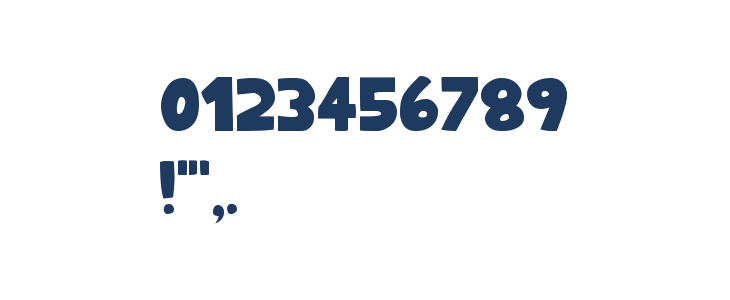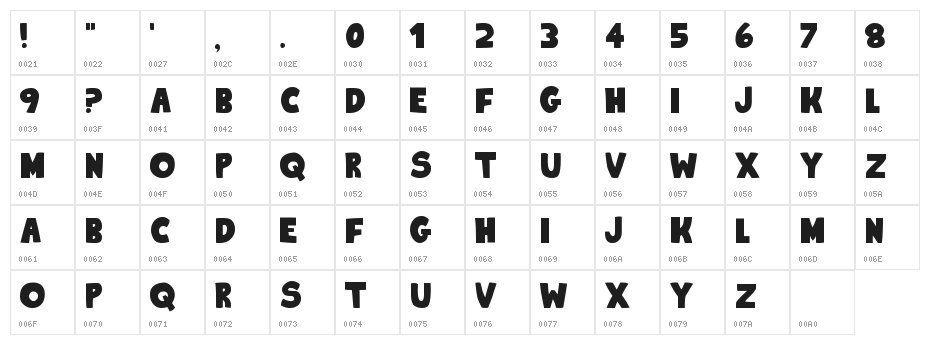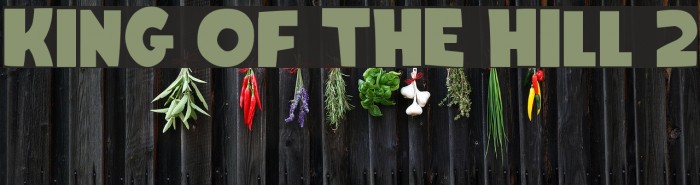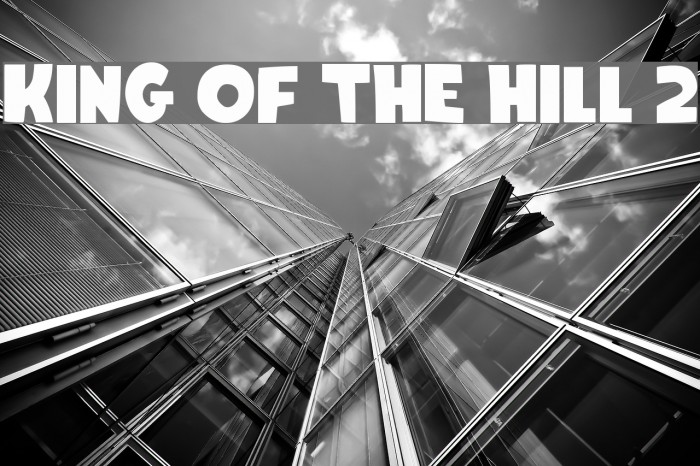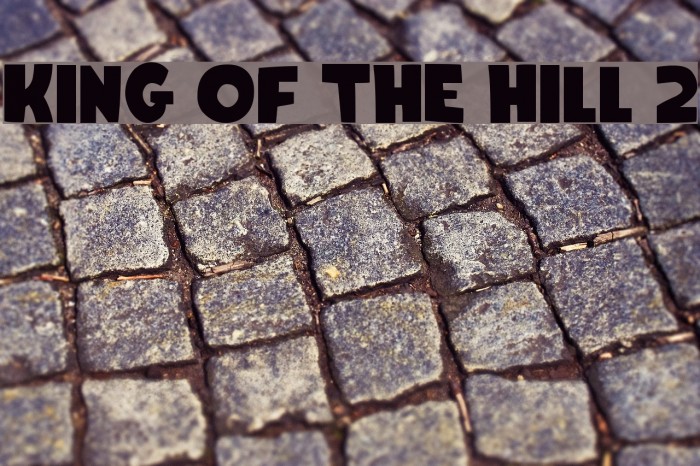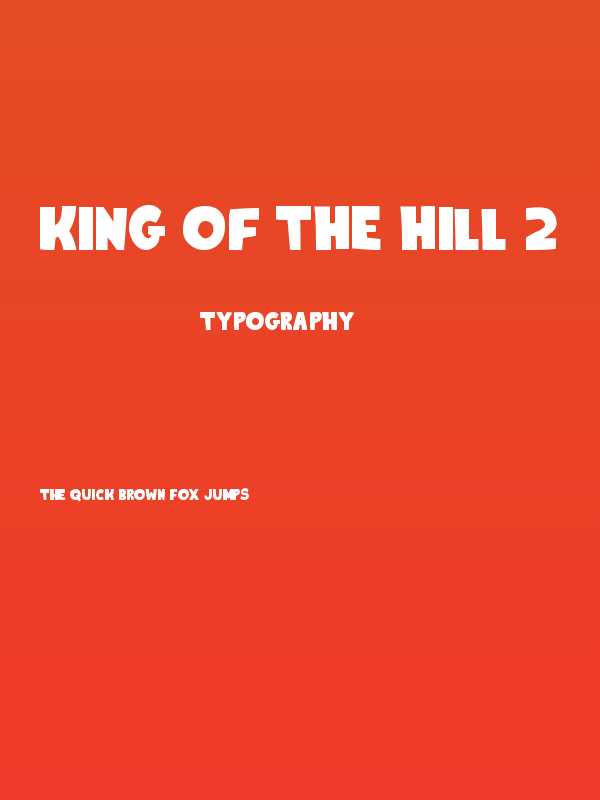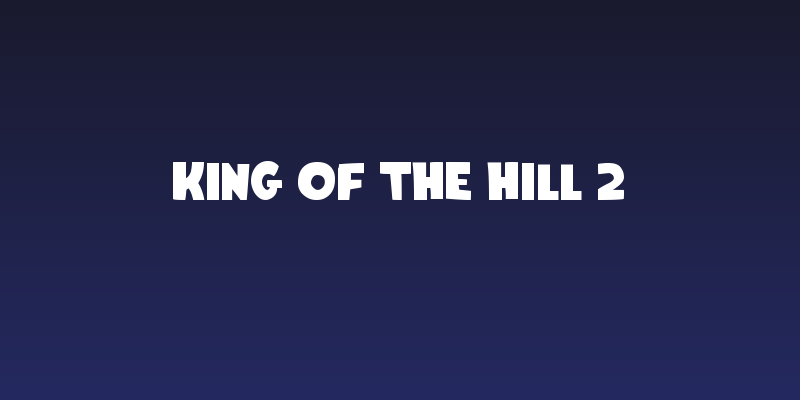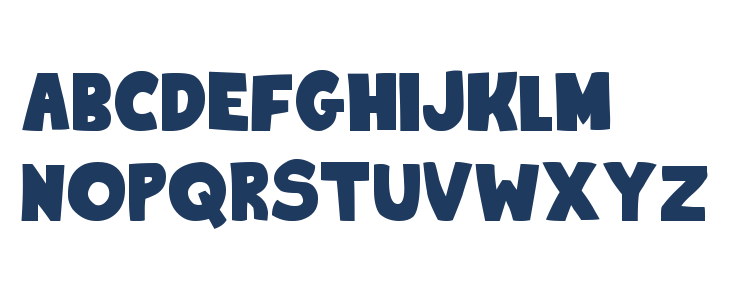
King Of The Hill 2 Font
King Of The Hill 2 Description
This font features bold, playful characters with a slightly irregular shape, giving it a lively and dynamic appearance. The letters are thick and rounded, with a cartoonish style that adds a sense of fun and whimsy. The uppercase and lowercase letters maintain a consistent weight, contributing to a cohesive look. The numbers and special characters follow the same bold and rounded design, ensuring uniformity across all glyphs. This font's unique style makes it stand out, making it suitable for projects that require a touch of humor and creativity.
| Overall Style | Playful, Cartoonish |
| Proposed Projects | Ideal for children's books, comic strips, playful branding, and event posters. |